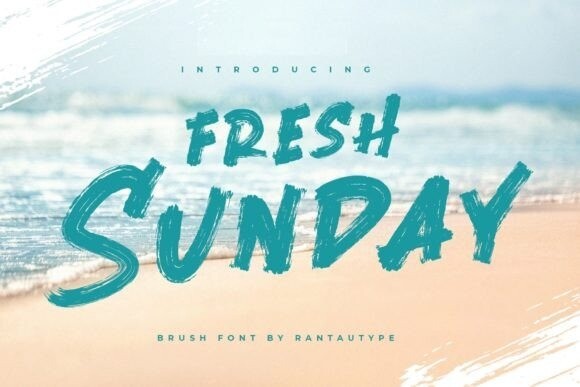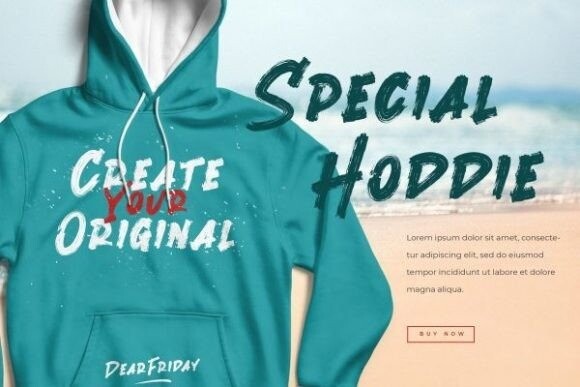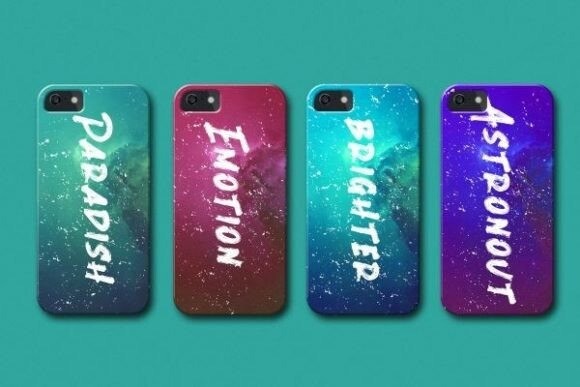
Fresh Sunday Font
Fresh Sunday Font is a modern, brush handwritten display font that radiates vibrancy and creativity. Its lively and organic letterforms capture the spontaneity of brush strokes, creating an energetic and dynamic feel. Perfect for eye-catching headlines, logos, and social media graphics, Fresh Sunday adds a fresh and youthful touch to any design, inviting viewers to embrace the joy of creativity.